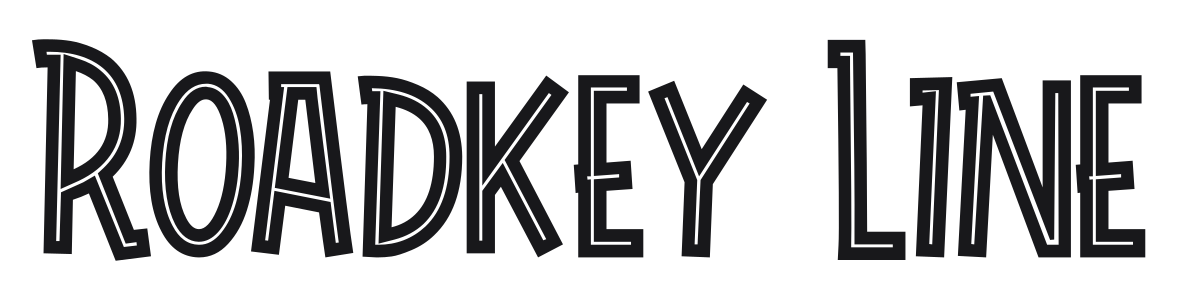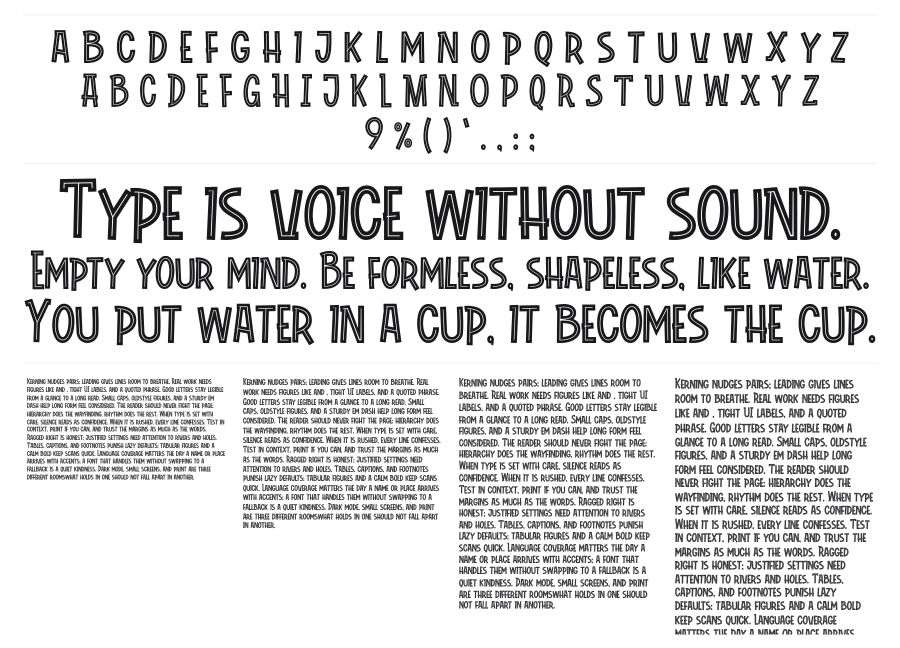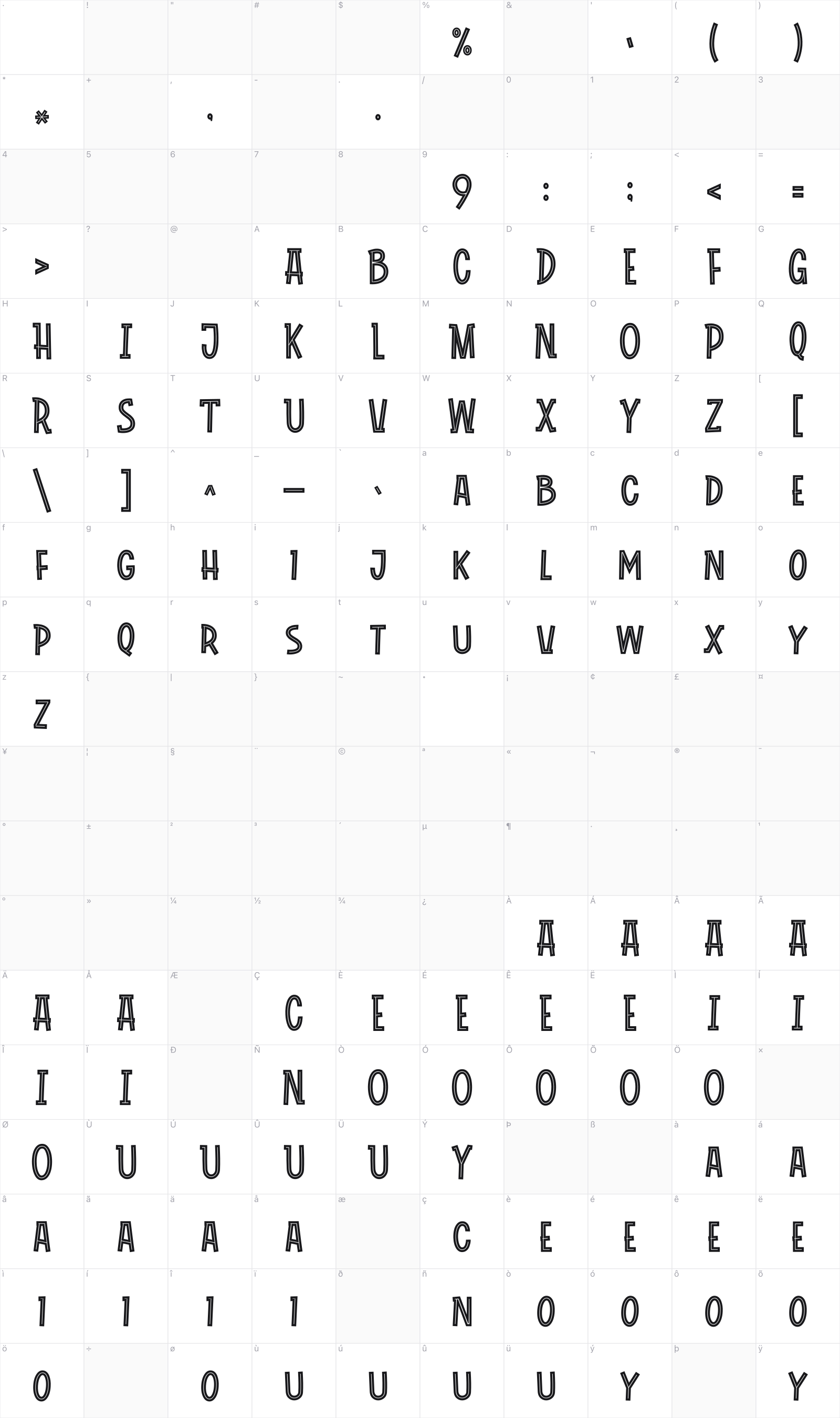
Roadkey Line
Roadkey Line is a bold inline outline sans with a casual, hand-drawn character. The slightly irregular letter shapes and rounded terminals give it warmth and energy that straight geometric outlines lack. Strong at large sizes for posters, packaging, and display headlines where a playful retro tone is needed.